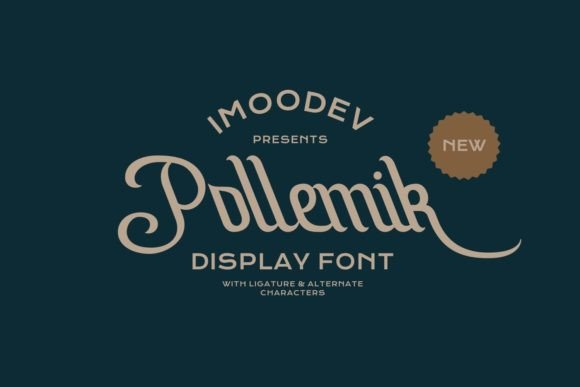
Prepare yourself to be whisked away into a world of elegance and charm with Pollemik Font, the captivating script font that exudes visual grace like no other. This enchanting font is meticulously designed with sweeping curves, delicate strokes, and a dash of playfulness that will turn your creative visions into breathtaking realities.
Pollemik is more than just a font; it's an artistic masterpiece that captures the essence of sophistication and artistry. Its smooth curves and beautiful ligatures create a harmonious dance of letters, adding a touch of allure to every word you write. Whether you're a designer, a blogger, or simply a lover of typography, Pollemik will elevate your projects to new heights of beauty and engagement.
Picture this: a rustic wedding invitation adorned with the graceful strokes of Pollemik, the perfect blend of charm and elegance. Or, envision a captivating logo that radiates personality and sophistication, thanks to the timeless appeal of Pollemik. From personal projects to corporate branding, Pollemik seamlessly adapts to a myriad of creative endeavors, adding a touch of magic to each one.
With Pollemik, you're not just downloading a font; you're embarking on a journey of creative expression. Unleash your imagination and let the flowing lines of Pollemik guide you toward remarkable designs that are sure to capture hearts and minds. Join countless others who have discovered the transformative power of Pollemik and witnessed their creative dreams come to life.